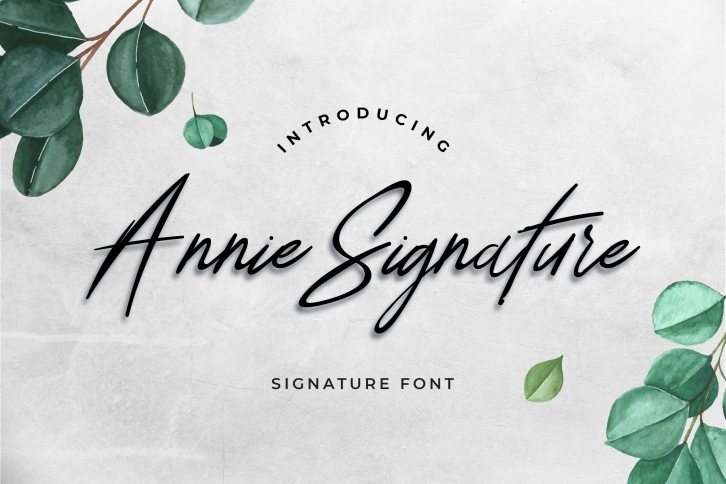
Annie Signature is a great font that was designed by UIcreative. Imagine the amount of combinations you can create using this font! The archive is 15.42 MB and it was released on June 27, 2020. Annie Signature looks beautiful on wedding invitations, greeting cards, logos, posters, labels, t-shirt designs, logos, business cards and is perfect for use in ink or watercolor works, fashion, magazines, packaging and food menus, children's books and more!